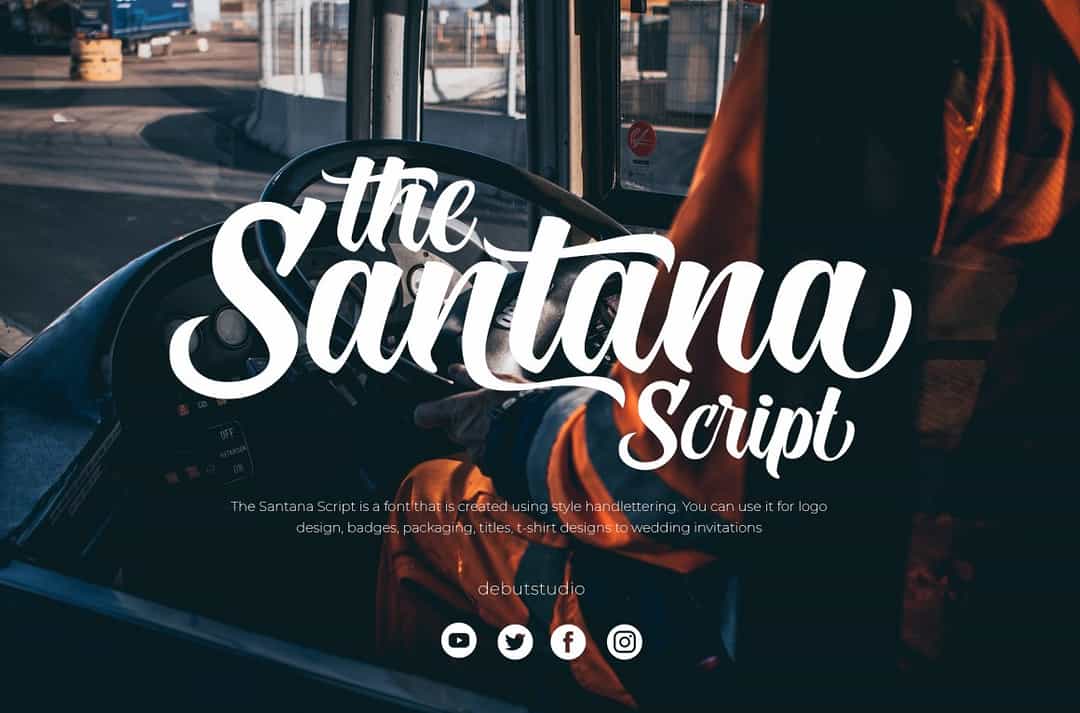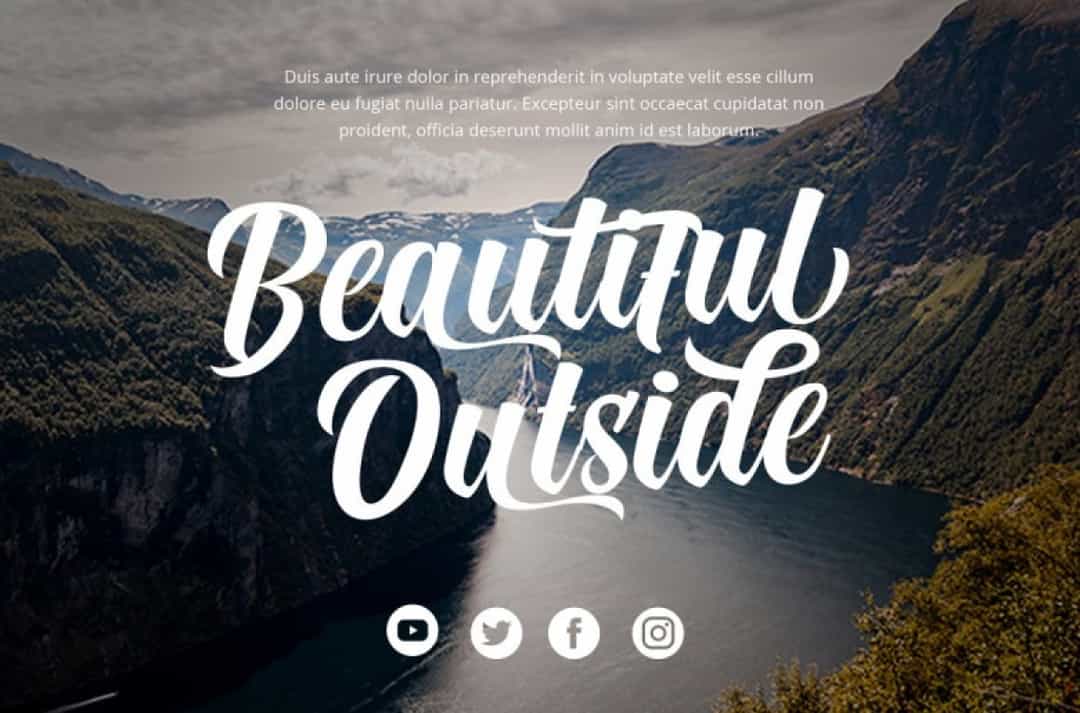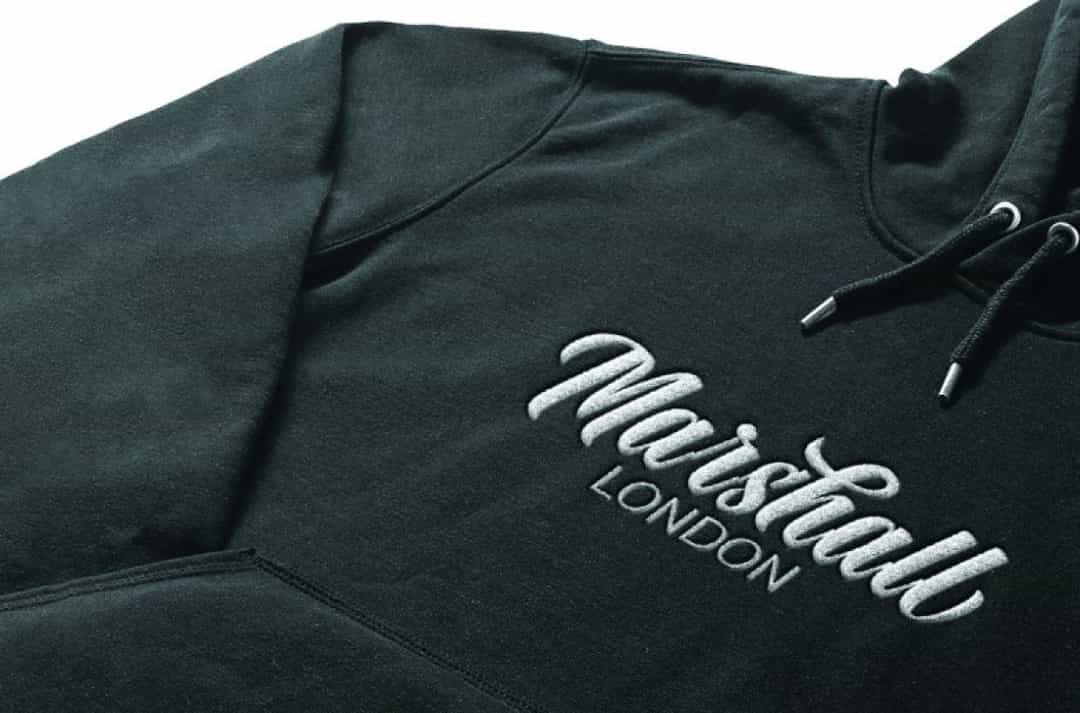
Discover The Santana Script Font, part of the Calligraphy Handwritten collection—a versatile and unique font perfect for adding a personal touch to your projects. Download it for free and enjoy crafting designs with style, from invitations to social media posts. This font is available exclusively for personal use, giving you the freedom to create without limits. Unlock your creativity with The Santana Script Font today!
Santana script font is an eye-catching handwritten font designed to become an all-time classic. With its elegant calligraphic style and contemporary vibe, this font will help elevate your designs to new heights! Use this stunning handwritten font in logo design, packaging designs, badges, T-shirt designs and titles. wedding invitations, titles etc.